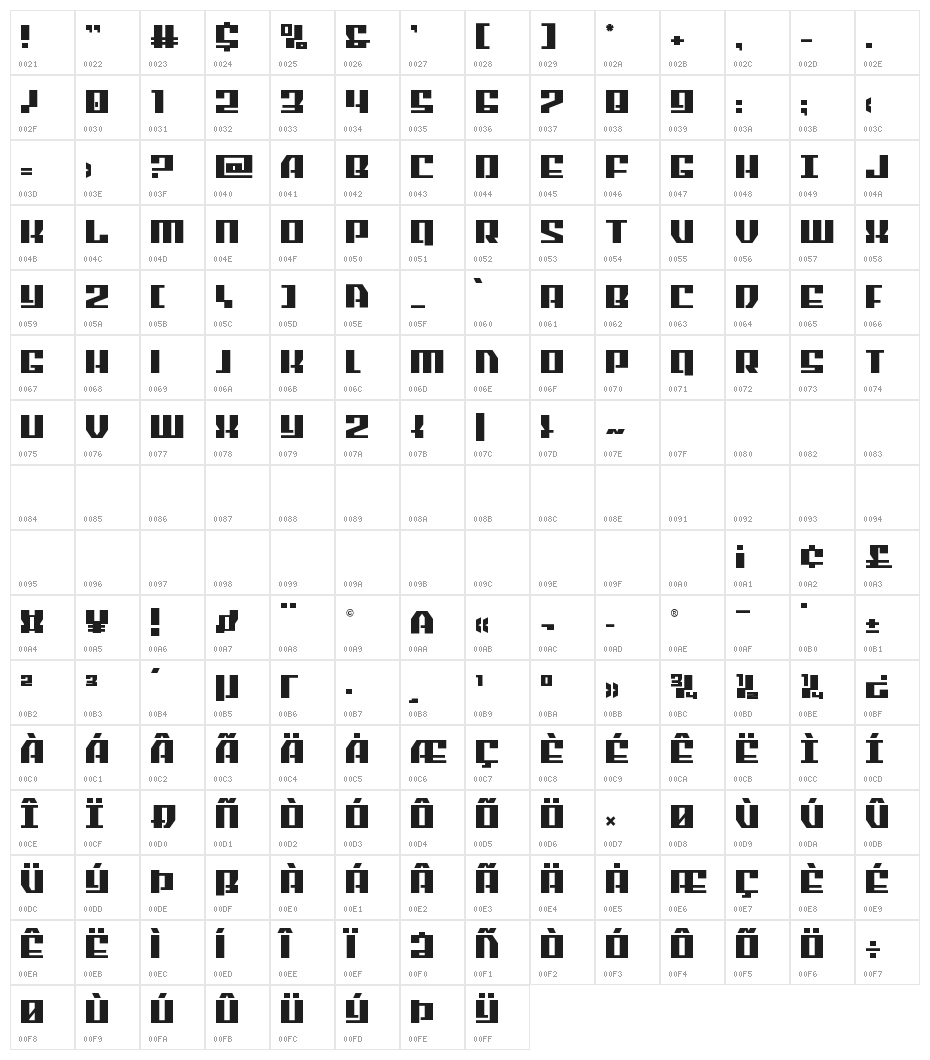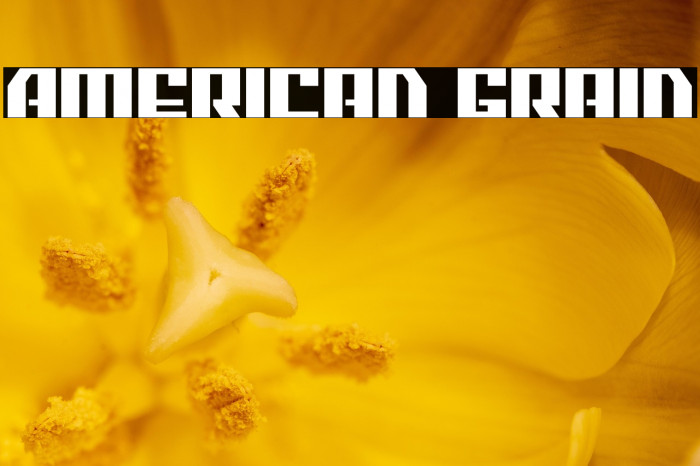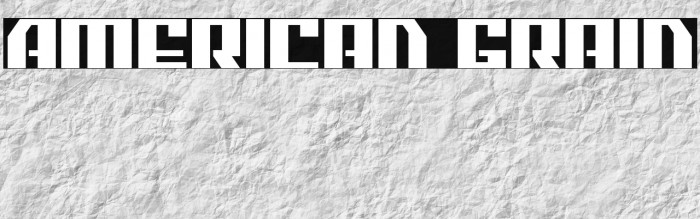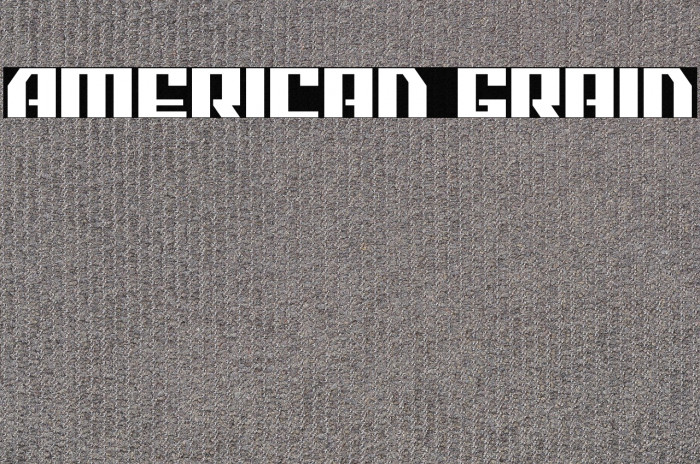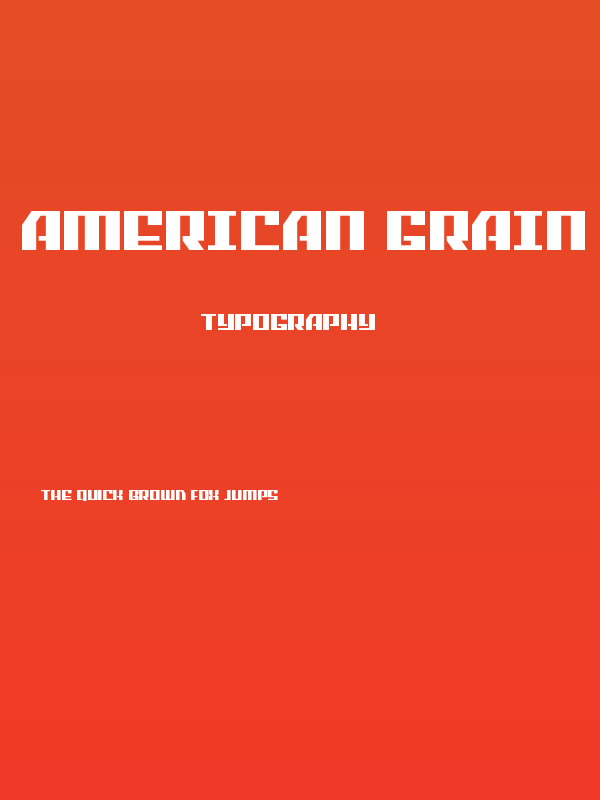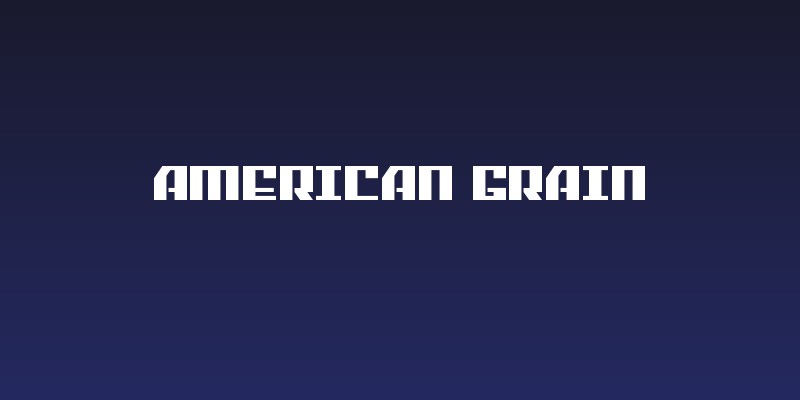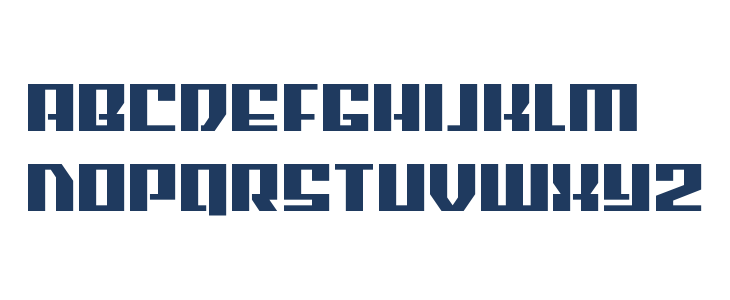
American Grain Font
American Grain Description
This font exhibits a bold, geometric style with a strong, industrial feel. The characters are constructed with sharp angles and straight lines, giving them a blocky, robust appearance. The uppercase and lowercase letters maintain a consistent height, contributing to a uniform look. The numerals and special characters follow the same design principles, ensuring cohesion across all elements. The font's heavy weight and solid structure make it ideal for impactful displays. Its unique design elements, such as the angular cuts and thick strokes, add a modern and edgy touch, suitable for projects that require a strong visual presence.